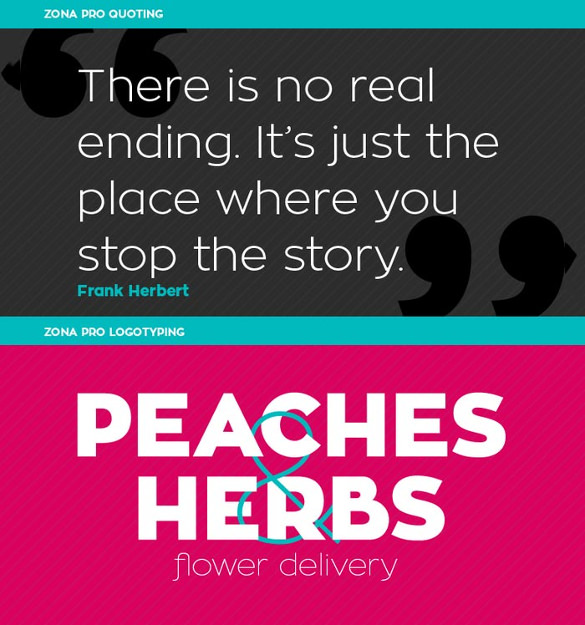
Review Of Infographic Fonts Ideas
Review Of Infographic Fonts Ideas. These typefaces have been designed and engineered especially for use in. This huge infographic bundle with 539 slide templates includes 20 free.
A fun font to use on infographic designs, eras was designed by robert slimbach ( wiki) back in 1984. Maybe we can help you save a few steps? Show readers how to choose the best font by modifying this font infographic template.
There Are Also Different Types Of Default Fonts That Designers Use For Most Web Pages, Even Those Which Are Meant To Be Part Of A Template.
20 free infographic templates for powerpoint. Typetogether offers a distinguished collection of professional information design fonts. While serif fonts are considered to be best for body text, sans serif fonts.
These Typefaces Have Been Designed And Engineered Especially For Use In.
They convey simplicity, honesty and positivity. If you’re searching for the best infographic fonts to complement your design, typetype studio is the one to provide a wide range of typefaces suitable for commercial purposes. To find out more, check out our full infographic, fonts 101:
It’s Available In Both Regular And Bold Which Means You Can Use The Same.
Granted It’s Not A Large Sample Size But The Research Revealed Some Interesting Information Like.